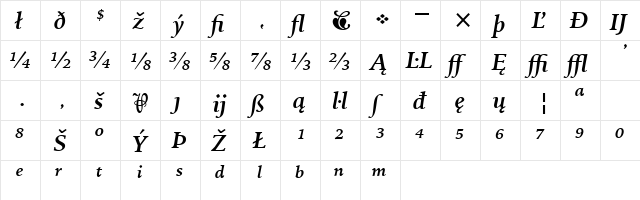
IowanOldSt Ext BT Bold Italic Extension Font Preview
Design Context for IowanOldSt Ext BT Typeface
IowanOldSt Ext BT takes a measured approach to typography — its balanced proportions and neutral character make it a reliable workhorse for both digital and print work. Its italic angle brings a sense of urgency and motion to the letterforms. The heavy weight commands attention and anchors typographic hierarchies.